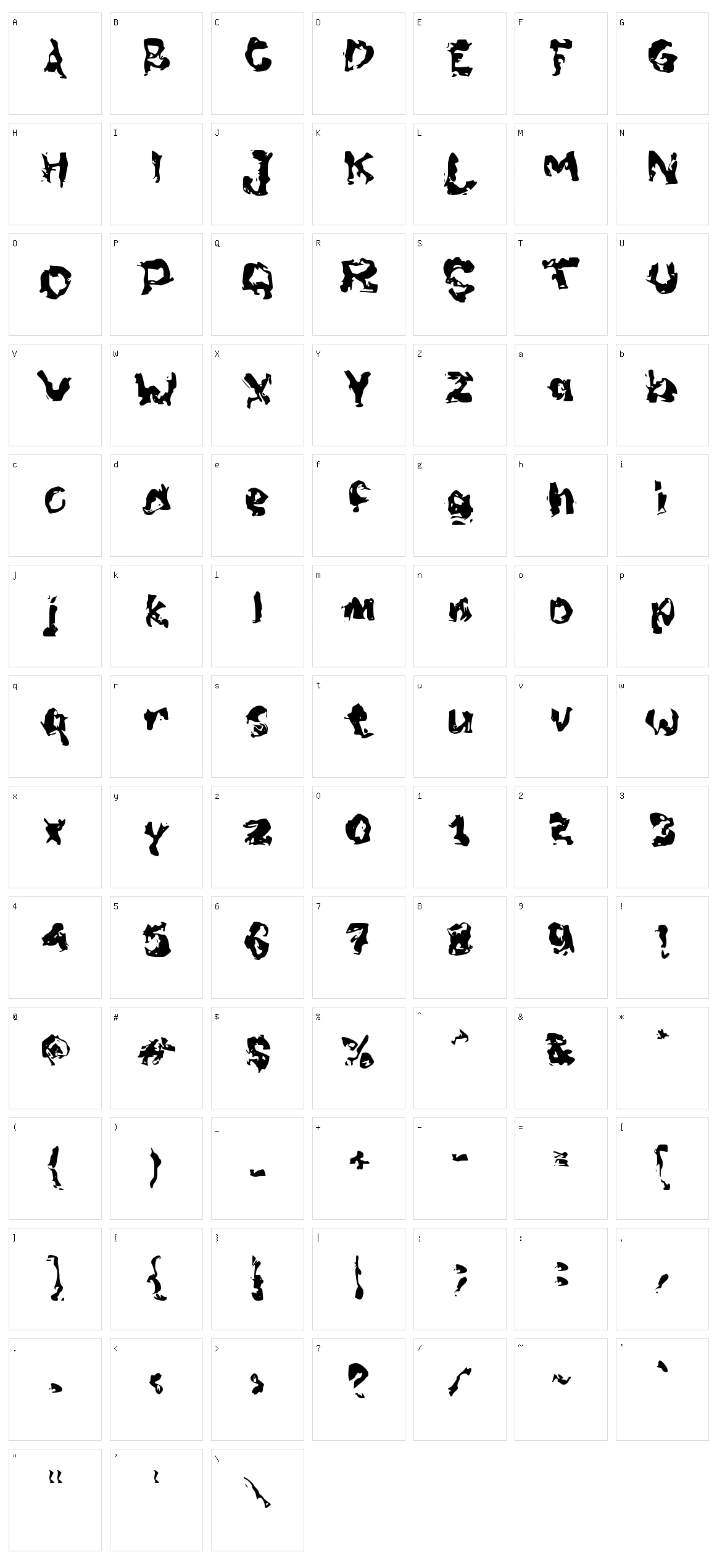
The free font c Crosty is carefully designed by wep, showcasing a thoughtful balance of creativity and usability and falls under the Trash font style. When you download the ZIP file, it contains only 25.64 KB of font files, making it lightweight and quick to download. Please review the license details below to understand permitted usage and distribution rights. If license information is not available, we recommend using this font for personal projects only or contacting the author directly for commercial usage permissions.